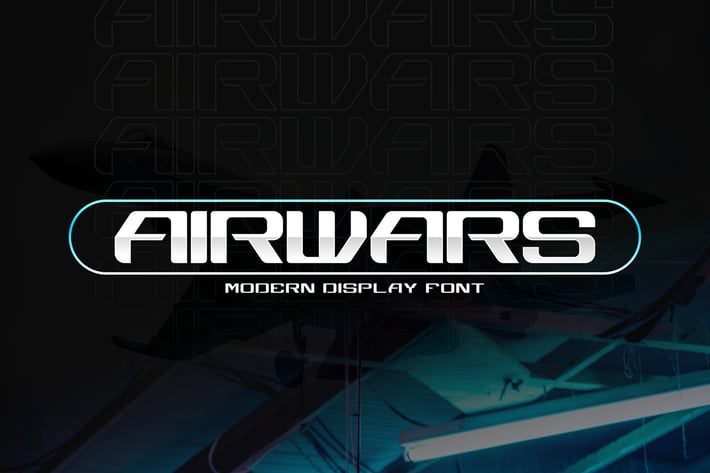
Airwars - Modern Futuristic Font
Airways font with a modern, simple and minimalist default,
suitable to be applied to the world of games, movies, lifestyle, articles, even container boxes, yes, that's the concept, hope you like it,